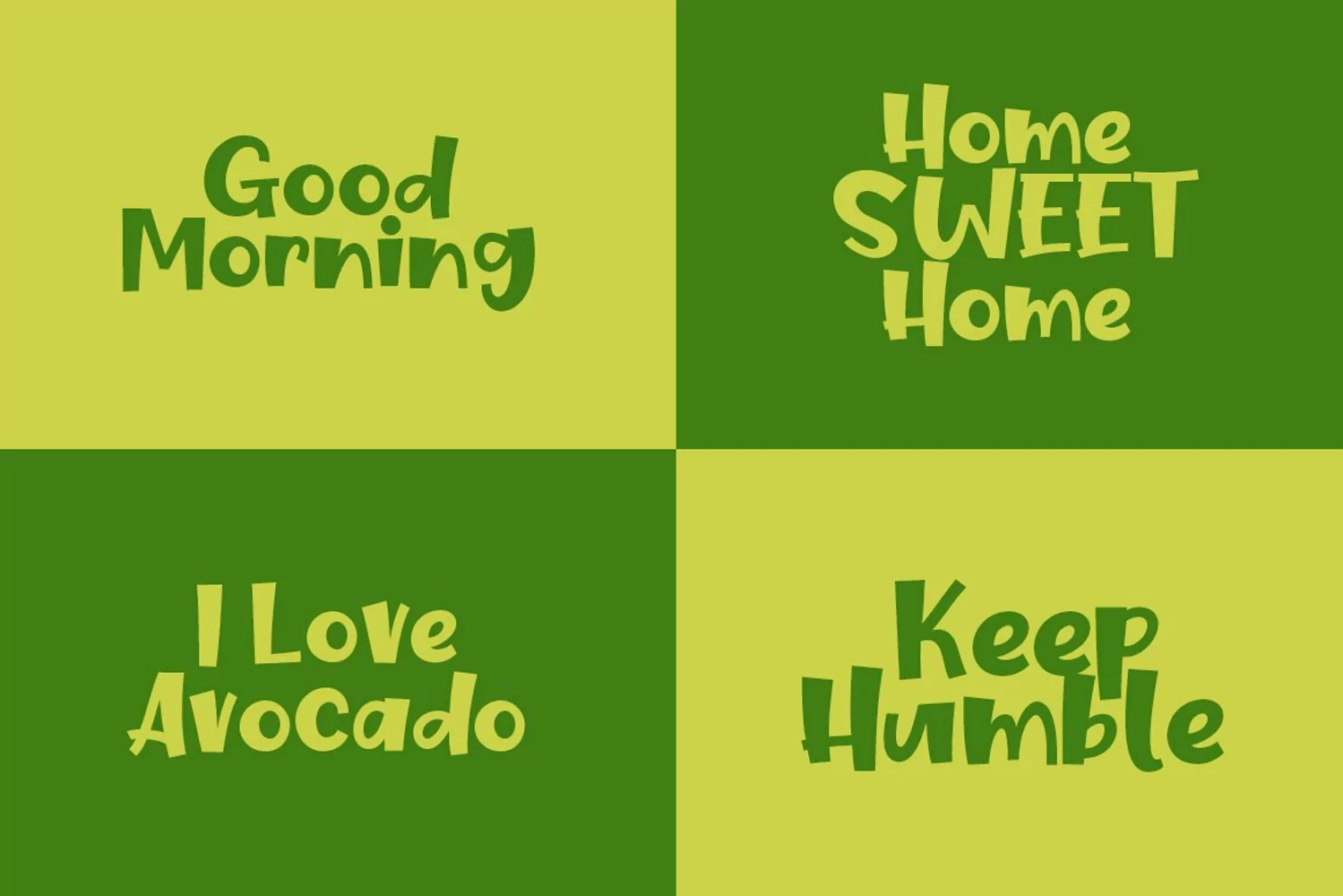
Introducing, Fresh Avocado font a fun display typeface with cheerful theme for your fun project. Fresh Avocado font support multilanguage. Fresh Avocado font suitable for logo, branding, greeting card, poster and any design that you create.